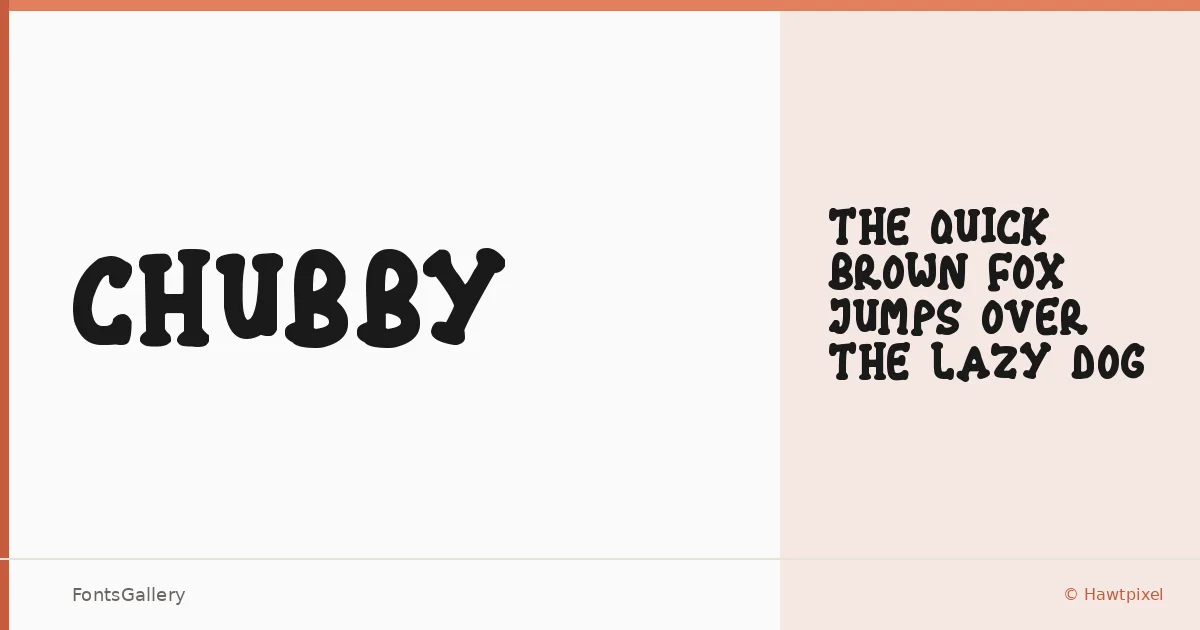
About Chubby Font
There is a deliberate rotundness to these letterforms — strokes that push outward, curves that refuse to be polite about the space they occupy. Released in 2018 by Darrell Flood under the Hawtpixel banner and built using Scanahand, it arrives as a single Regular cut, which is all it really needs to make its point.
This is a display face in the boldest, most playful sense of that word. The forms carry a whimsical weight that reads as cheerful rather than heavy — the kind of lettering that belongs on a hand-painted sign or a title page aimed squarely at a younger audience. Available in TTF and OTF formats, the single Regular style commits fully to its personality without hedging into lighter or more restrained territory.
It earns its place on posters, children's book covers, branding work, logo treatments, and T-shirt graphics — anywhere the goal is immediate warmth and energy rather than quiet refinement. When you need to balance it with something more neutral, it pairs well against clean workhorses like Helvetica, Aileron, or Alexandria, and holds its own alongside the more distinctive characters of Aranea, Aresink.